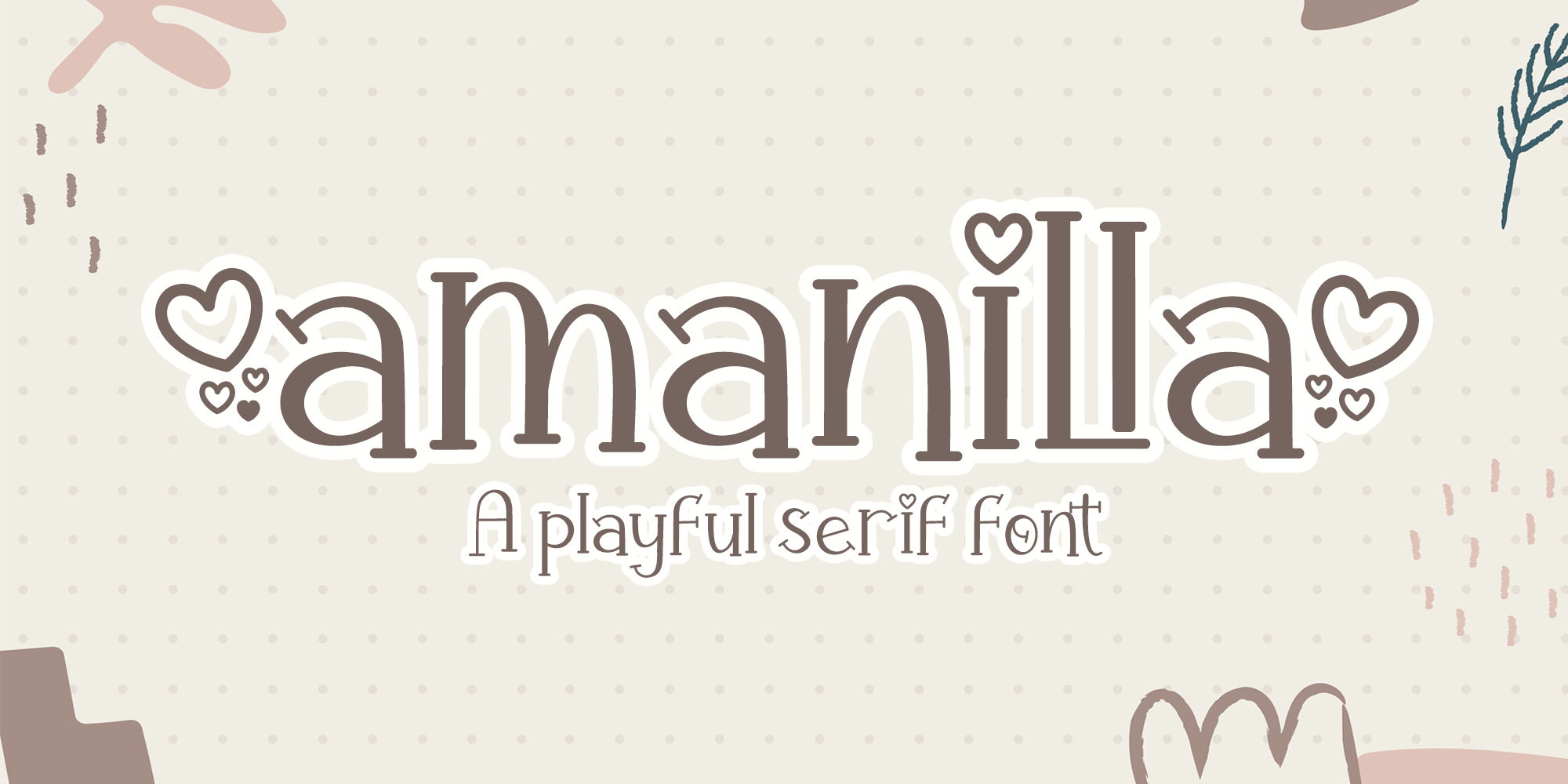
Amanilla Font is perfect for vanilla-themed branding, sweet dessert packaging, tropical flavor designs, aromatic spice materials, culinary publications, gourmet food campaigns, warm flavor graphics, and delicate vanilla typography.
What makes Amanilla Font exciting is its sweet aromatic character that embodies vanilla warmth and tropical flavor sophistication through smooth letterforms and comforting appeal. This delightful typeface features vanilla construction, sweet details, and aromatic personality that captures the essence of vanilla elegance and tropical culinary experiences, making it ideal for projects seeking to communicate sweetness, warmth, and culinary sophistication with authentic vanilla appeal and tropical refinement.
The Amanilla Font family includes Light, Regular, and Medium weights, each maintaining the characteristic vanilla warmth and sweet appeal that define this distinctive typeface's aromatic personality and culinary sophistication.
Amanilla Font Free Download offers designers access to a typeface that perfectly captures the essence of vanilla elegance and tropical culinary sophistication. This sweet font brings authentic aromatic aesthetics to contemporary projects, making it essential for gourmet food brands, tropical restaurants, and culinary companies targeting audiences who appreciate vanilla flavors and sweet culinary experiences. The font's vanilla construction and aromatic details ensure immediate recognition of sweetness and warmth while its distinctive character creates comforting connections among individuals seeking sweet experiences and vanilla sophistication. Whether designing vanilla product materials, tropical culinary campaigns, or sweet brand communications, this font delivers the vanilla authenticity and aromatic sophistication that culinary enthusiasts expect. Its sweet foundation and vanilla symbolism make it indispensable for projects celebrating culinary warmth, tropical flavors, and the comforting appeal of vanilla elegance, ensuring communications resonate with audiences who value the sweet comfort, aromatic quality, and vanilla sophistication that define authentic sweet experiences and tropical culinary culture across diverse culinary and aromatic applications.